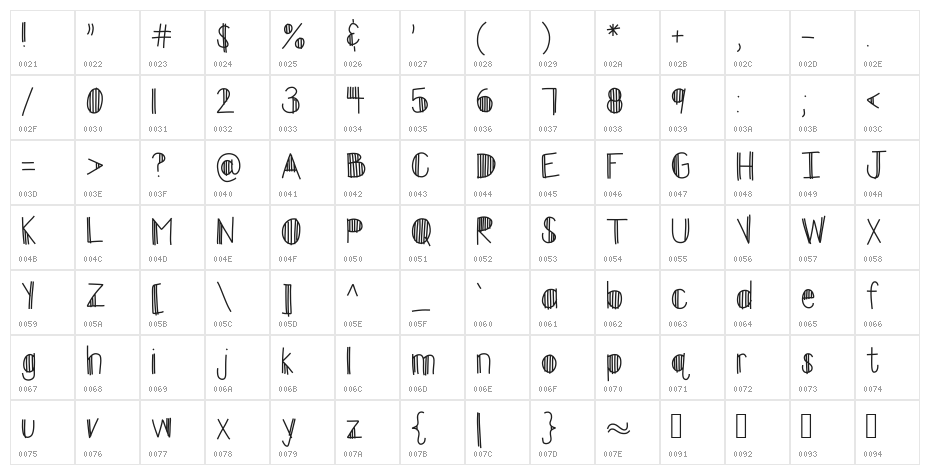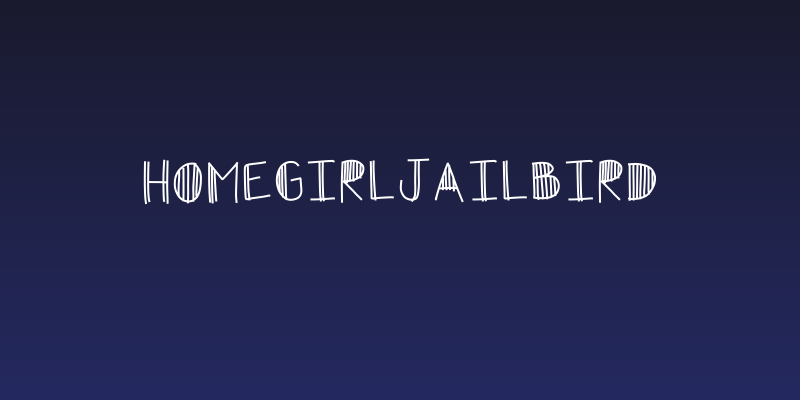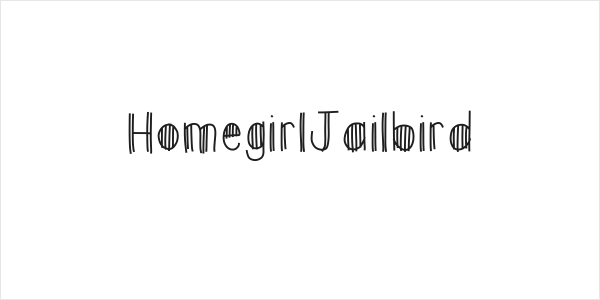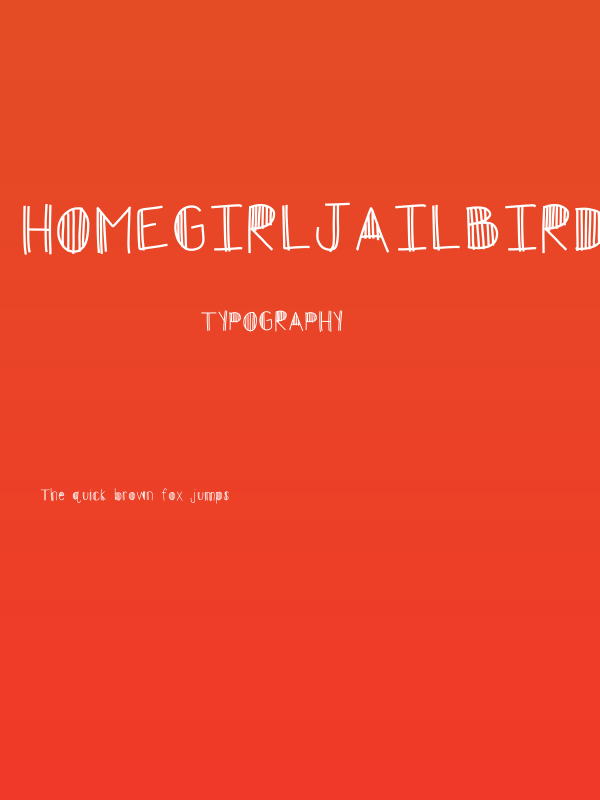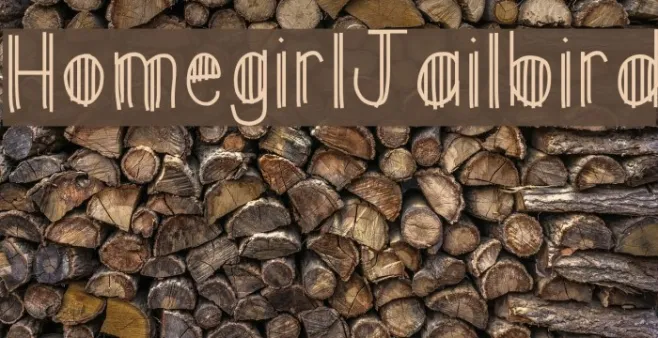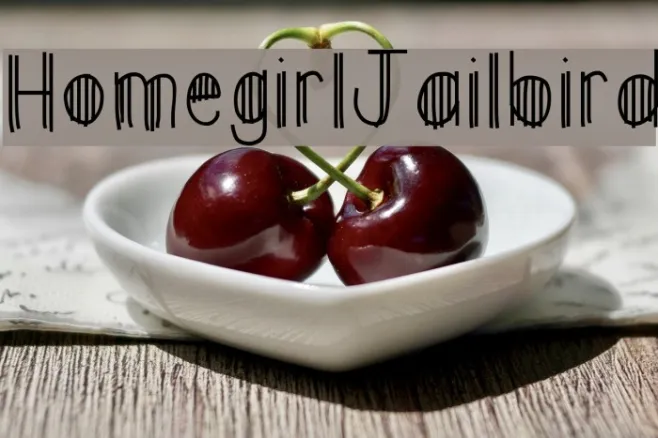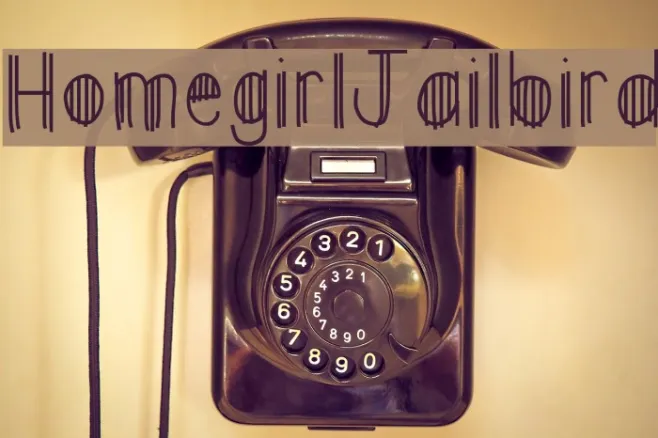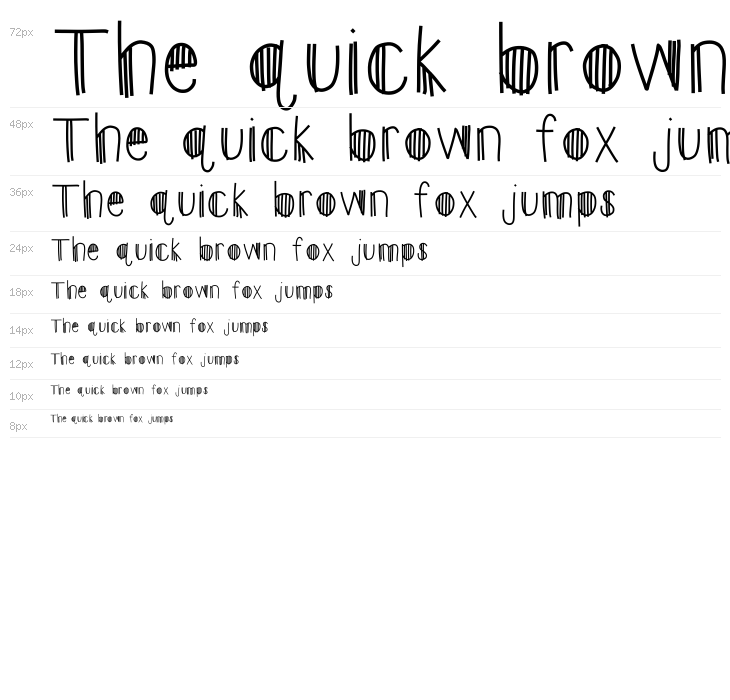
HomegirlJailbird Font
HomegirlJailbird Description
This font features a playful and quirky design with a hand-drawn aesthetic. The letters are characterized by vertical lines running through them, giving a unique striped appearance. The uppercase and lowercase letters maintain a consistent style, with rounded edges and a slightly irregular form that adds to the casual, informal feel. Numbers and special characters follow the same design principles, ensuring a cohesive look across all elements. The font's distinctiveness makes it suitable for creative projects that require a touch of whimsy and individuality.
HOMEGIRLJAILBIRD UPPERCASE
HOMEGIRLJAILBIRD LOWERCASE
HOMEGIRLJAILBIRD OTHER CHARS
| Overall Style | Quirky, Hand-drawn |
| Proposed Projects | Ideal for children's books, playful branding, greeting cards, and creative posters. |